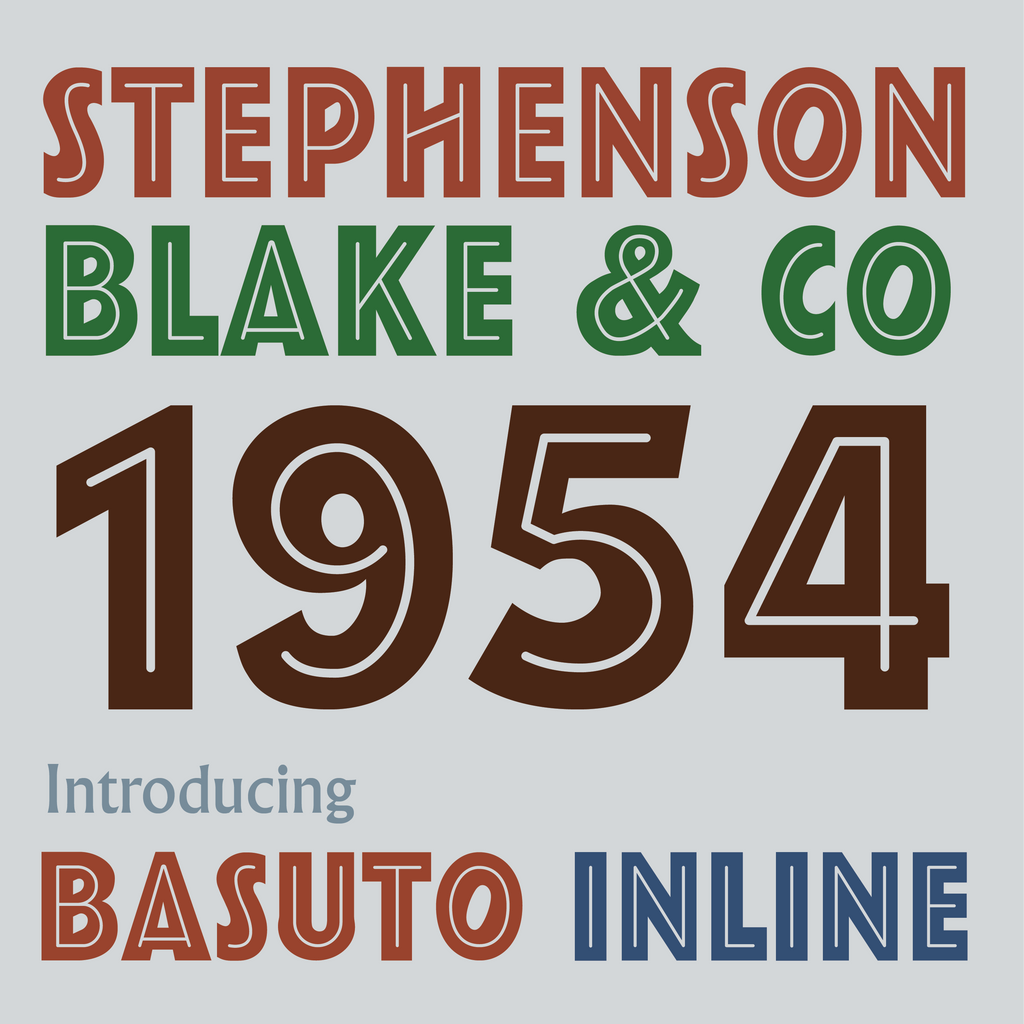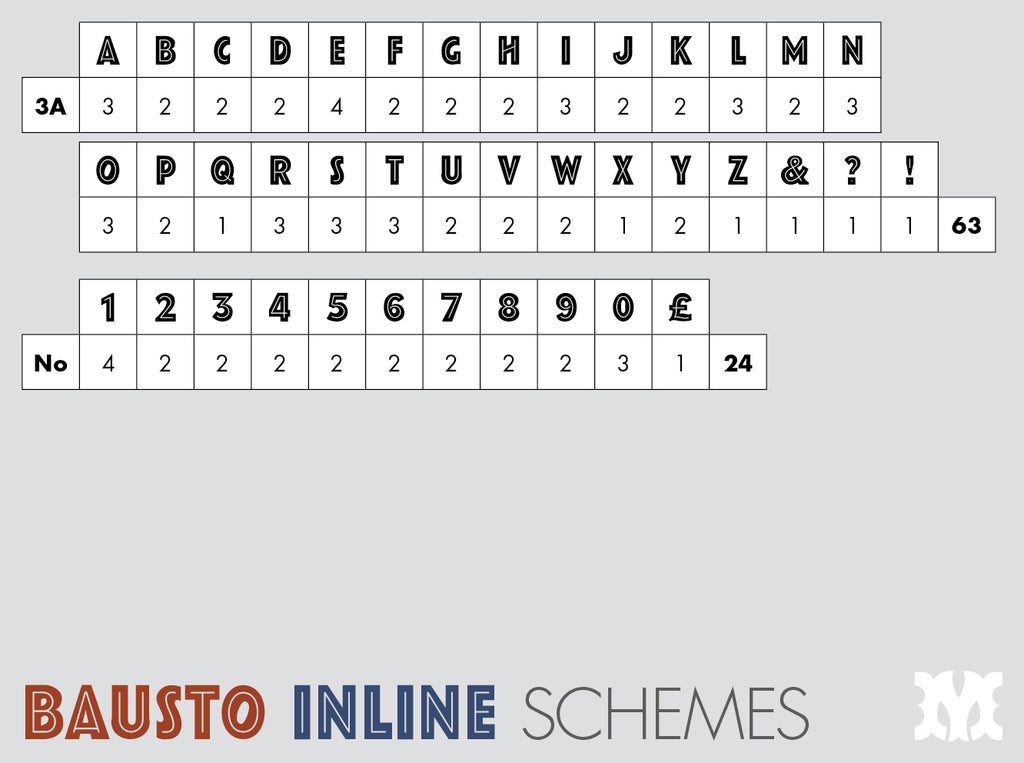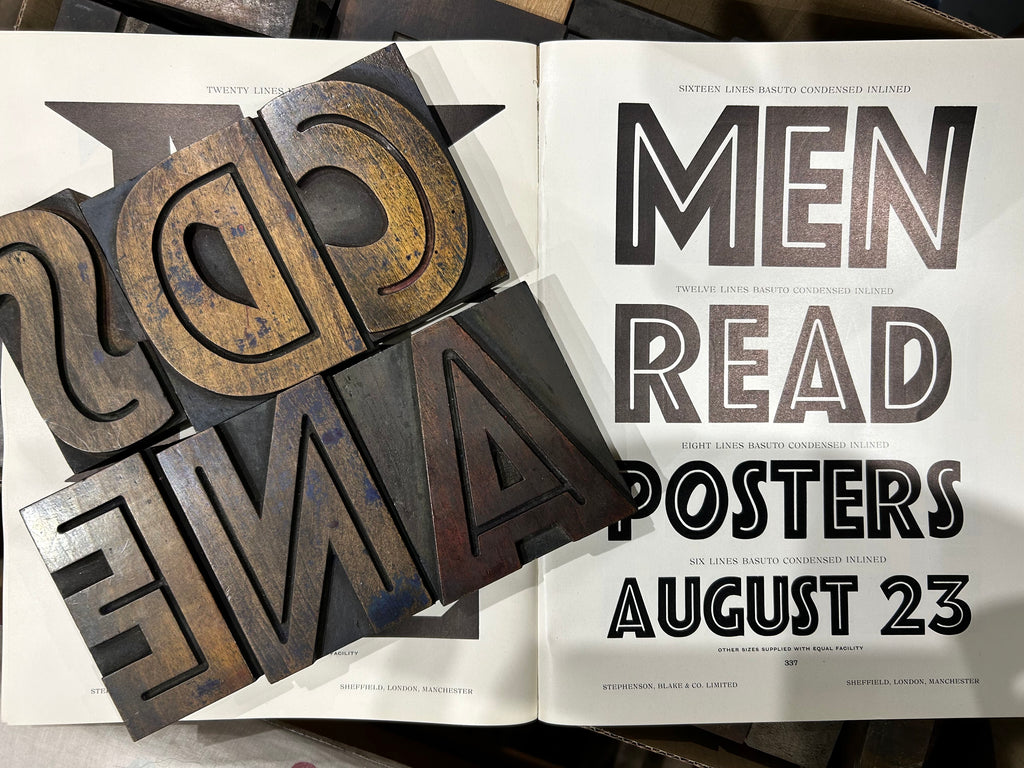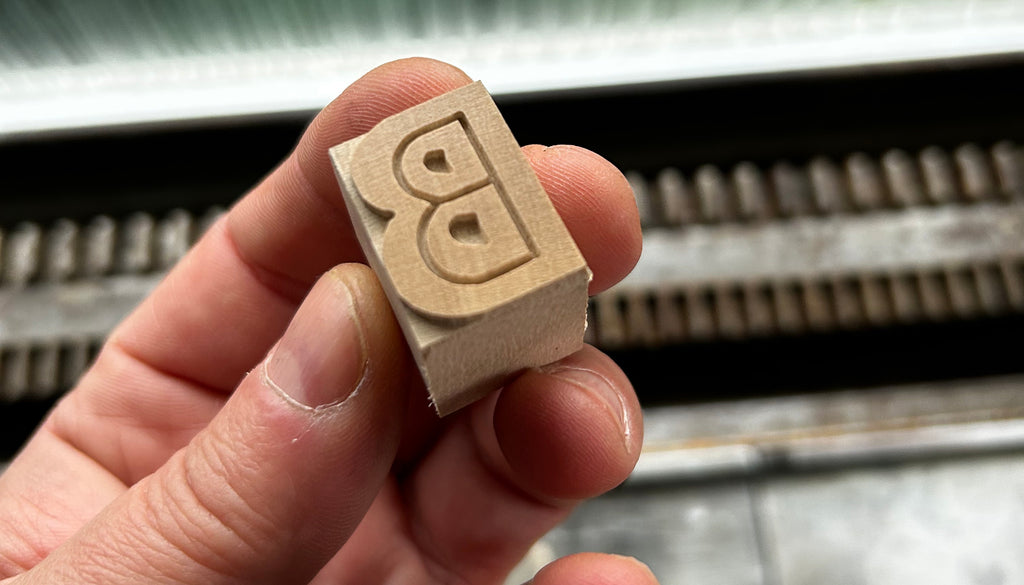
'Basuto Inline' Letterpress Woodtype Typeface
A redrawn version of 'Basuto Inline' using reference from a collection of 24 line sorts in my collection, my copy of the Stephenson & Blake woodtype catalogue and help from the Letterform Archive.
Part of my 'Revival' series.
6 line (25.4mm) version cut from end grain English hardwood using a combination of modern CNC technology and traditional hand woodworking tools (including an original printers saw), made to English type-high (0.918in or 23.3mm) within plus or minus 0.1mm tolerance, with a traditional polished printing surface.
English end grain hardwood, clear shellac, linseed oil.
Each block measures an average of 20mm x 23.3mm x 25.4mm.